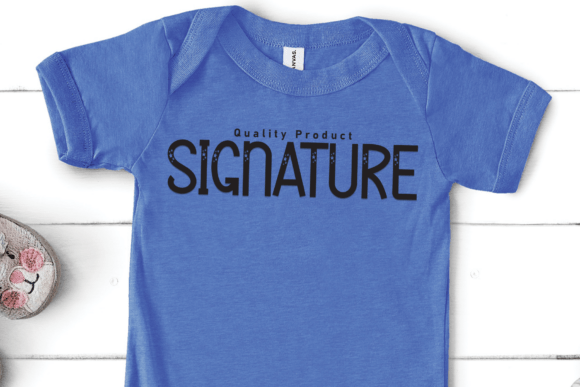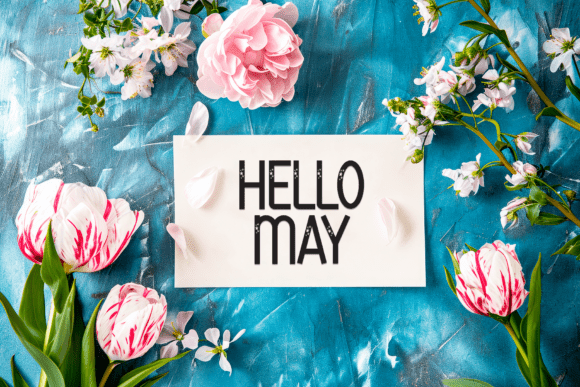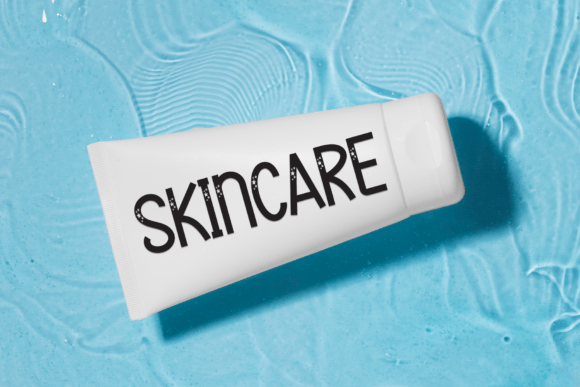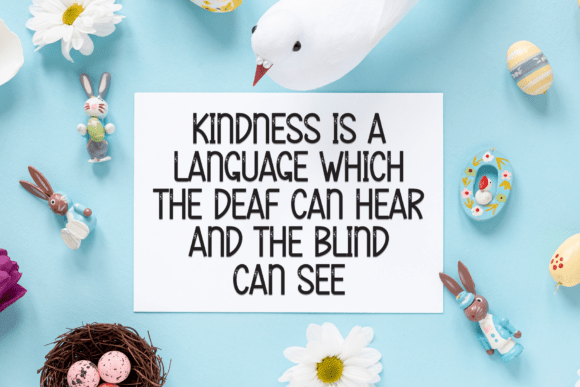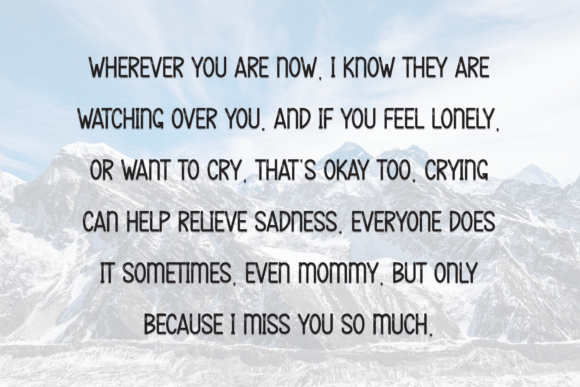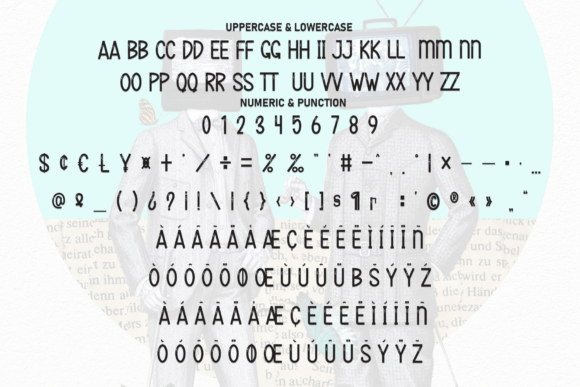
The Power of Creative Vintage: A Bold and Stylish Display Font
Have you ever been in the middle of a design project, and suddenly, you’re stuck on finding the perfect font? I recall a recent experience where I was working on a vintage-themed poster for a client’s retro-style cafe. The design was almost complete, but something was missing – a font that could capture the essence of a bygone era while still feeling modern and fresh. That’s when I stumbled upon **Creative Vintage**, a bold and stylish display font that instantly elevated my design.
An Honest Review of Creative Vintage
- ✨ Tall, condensed letters that give it a unique, nostalgic feel
- ✅ Charming star accents that add a touch of whimsy and flair
- 💥 Perfect for posters, branding, vintage labels, and artistic design projects that need a creative edge
- 🎨 Works beautifully with OpenType features, glyphs, and stylistic alternates for added versatility
While Creative Vintage is an amazing font, there are a few things to keep in mind:
- ⚠️ May not be suitable for body text due to its bold and condensed nature
- 🤔 Some characters may require manual kerning for optimal spacing
The Backstory of Creative Vintage
Creative Vintage was inspired by the golden age of advertising, when posters and billboards were a work of art. The designer aimed to capture the essence of that era, combining bold typography with charming accents to create a font that’s both nostalgic and modern. The result is a versatile font perfect for a wide range of design projects.
Q: What type of projects is Creative Vintage best suited for?
A: Creative Vintage is ideal for posters, branding, vintage labels, and artistic design projects that require a bold, stylish font with a retro twist.
Q: Does Creative Vintage support OpenType features?
A: Yes, Creative Vintage supports OpenType features, including glyphs and stylistic alternates, allowing for added versatility in your designs.